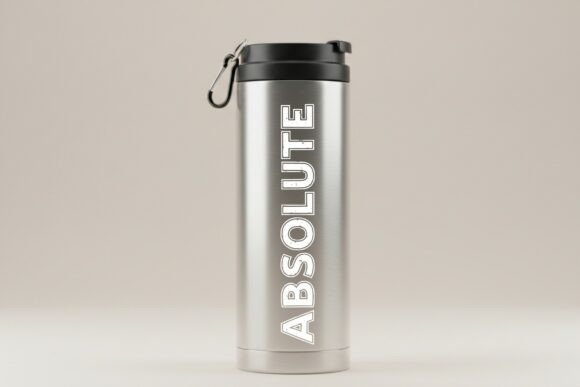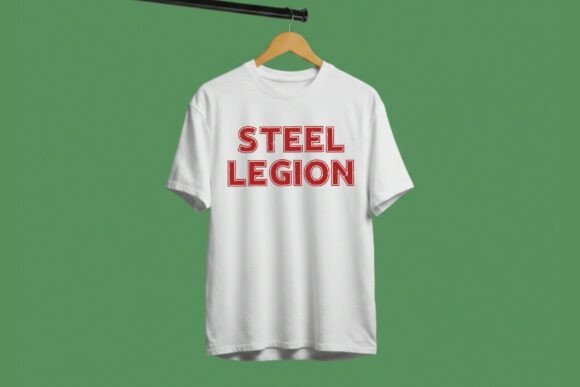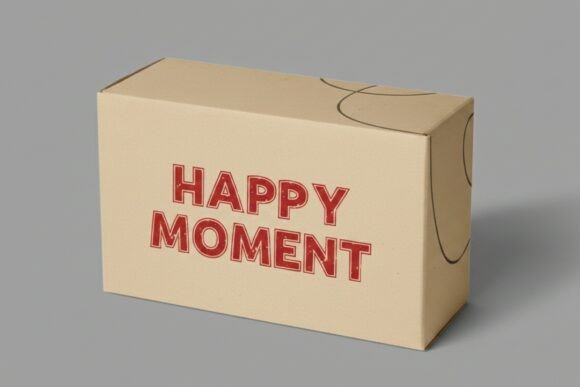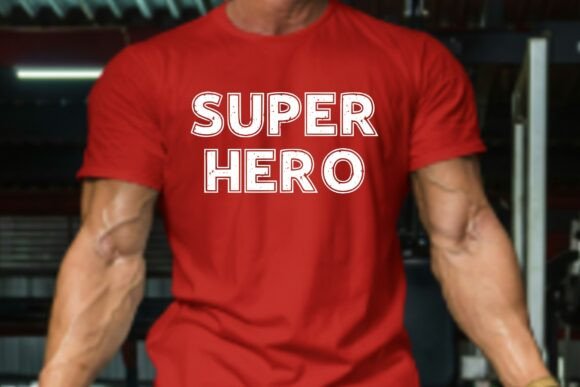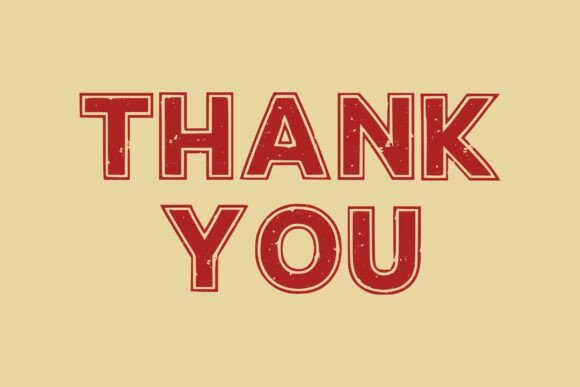
Brick Force Font: Unleash the Power of Bold and Rugged Typography
In the world of typography, fonts play a crucial role in conveying the tone and personality of a design. For designers and crafters looking for a bold and rugged display font, Brick Force is an excellent choice. Inspired by vintage military signage and industrial typography, Brick Force is a powerful and impactful font that can elevate your designs to the next level.
The Inspiration Behind Brick Force
Brick Force is a font that draws inspiration from the strong and sturdy structures of industrial and military typography. The font’s design is rooted in the blocky and rugged aesthetic of vintage military signage, which exudes a sense of strength and resilience. The distressed grunge texture adds a layer of depth and character to the font, giving it a worn and authentic look.
Key Features of Brick Force
Brick Force boasts a range of features that make it an ideal choice for designers and crafters. Some of its key features include:
- Strong Block Structure: The font’s block structure is robust and sturdy, making it perfect for creating bold and eye-catching designs.
- Distressed Grunge Texture: The distressed texture gives the font a worn and authentic look, adding a layer of depth and character to your designs.
- Masculine and Bold Character: Brick Force has a distinctly masculine and bold character, making it perfect for designs that require a strong and powerful aesthetic.
- Subtle Rough Details: The font’s subtle rough details give it a realistic and worn effect, making your designs feel more dynamic and eye-catching.
Use Cases for Brick Force
Brick Force is a versatile font that can be used in a wide range of design applications. Some of the most popular use cases for the font include:
- Posters: Brick Force is perfect for creating bold and eye-catching posters that require a strong and impactful font.
- Logos and Branding: The font’s bold and rugged aesthetic makes it an excellent choice for logos and branding projects that require a strong and memorable identity.
- Packaging: Brick Force can add a touch of industrial chic to packaging designs, making it perfect for product labels and packaging materials.
- T-Shirts and Apparel: The font’s bold and rugged aesthetic makes it perfect for t-shirt and apparel designs that require a strong and eye-catching font.
- Signage: Brick Force is an excellent choice for signage projects that require a bold and impactful font, such as construction signs, warning signs, and directional signs.
- Retro-Themed Designs: The font’s vintage aesthetic makes it perfect for retro-themed designs, such as posters, logos, and packaging materials.
Why Choose Brick Force?
With so many fonts available, why choose Brick Force? Here are just a few reasons why Brick Force stands out from the crowd:
- Unique Aesthetic: Brick Force has a unique and distinctive aesthetic that sets it apart from other fonts.
- High-Impact Designs: The font’s bold and rugged aesthetic makes it perfect for creating high-impact designs that grab attention.
- Versatility: Brick Force is a versatile font that can be used in a wide range of design applications.
- Authentic Look: The font’s distressed texture and subtle rough details give it an authentic and worn look that adds depth and character to your designs.
In conclusion, Brick Force is a powerful and impactful font that is perfect for designers and crafters looking for a bold and rugged display font. With its strong block structure, distressed grunge texture, and masculine and bold character, Brick Force is an excellent choice for a wide range of design applications. Whether you’re working on posters, logos, branding, packaging, t-shirts, signage, or retro-themed designs, Brick Force is the perfect choice to add strength and personality to your design.